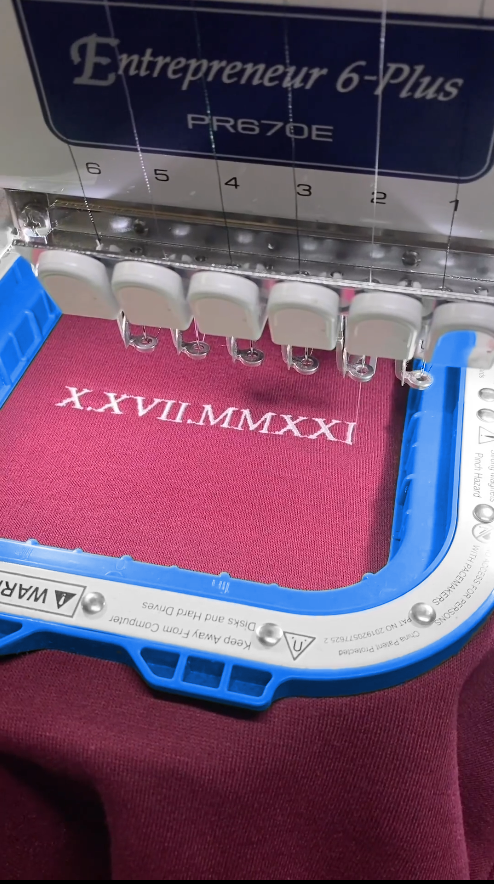
Mastering Monogram Fonts for Embroidery: Selection, Sources, and Expert Techniques
1. Introduction to Monogram Fonts for Embroidery
Monogram fonts are the heartbeat of personalized embroidery. Choose well, and initials read crisply, stitch smoothly, and instantly elevate towels, bags, tees, linens—everything, especially when using best sewing machine for embroidery and sewing. In this guide, you’ll get a curated list of free and premium monogram fonts, where to source them, and how to match styles to fabrics and sizes. We’ll also demystify etiquette, share software tips for clean spacing and alignment, and show you how proper hooping and tension deliver flawless results. Ready to pick fonts that stitch beautifully—and sell even better?
2. Comprehensive Guide to Free and Premium Monogram Fonts
2.1 Top Free Fonts: From Classic to Playful Styles
Free monogram fonts can be high quality—if you watch licensing and choose stitch-friendly styles.
• Strawberry Whipped Cream (script): A versatile, curly style with full commercial and non‑commercial freedom. Great for gifts, boutique items, and playful personalizations where a fluid script fits the vibe.
• Landsdowne (serif): A classic monogram favorite with an antique feel; Landsdowne Shadowed adds drama and depth. Ideal for linens and formal items. Licensing varies by source—verify terms before commercial use.
• Mesh Stitch (decorative): Includes uppercase/lowercase, numbers, and punctuation—excellent value for hobbyists. For commercial use, additional licensing may be required.
How to pick by fabric and project (serif vs. sans vs. script):
• Serif: Traditional elegance that looks fantastic on smooth linens and towels; use when formality matters. On textured fabrics, fine serifs can lose clarity.
• Sans‑serif/block: Clean, bold shapes stay legible on textured surfaces (think terry or waffle). A strong choice for beginners and daily production.
• Script: Sophisticated and flowing. Keep sizes larger to preserve thin strokes and avoid thread breaks; better suited to smooth fabrics.
Pro move:
• Test-stitch on scrap fabric that matches your final item. If a script’s thin strokes sink into texture, swap to a bolder sans‑serif.
2.2 Premium Font Platforms and Specialized Collections
Professional platforms save time with reliable digitizing, multi-format packs, and clear licensing. Here’s a quick comparison.
• As Embroidery Nurse notes, not every marketplace font is equally well digitized. Retire designs that cause thread breaks or show excess density, and build a shortlist of trusted digitizers.
2.3 Emerging Trends: Popular Fonts and Hybrid Applications
What’s hot right now:
• Fishtail monogram: Classic with a playful, feminine twist—popular for girls’ apparel and women’s gifts.
• Diamond style monogram: A timeless, bold look that works for both men’s and women’s accessories; thick strokes suit towels and robes.
• Monogram KK: Beautiful cursive letters (upper and lower), versatile for classy personalization and even appliqué projects.
Hybrid embroidery + cutting workflows:
• If you also use cutting machines, fonts like Radon, Moalang, and Venerable are optimized for Cricut-style applications. Designers increasingly choose families that translate across embroidery and vinyl/paper, streamlining branding and seasonal collections.
Real‑world inspiration:
• Themed monograms (e.g., an American flag monogram) stitch into everyday apparel like tanks and tees, delivering high perceived value with a simple left‑chest placement.
9.2 Q: Can I resize purchased monogram fonts?
- A: Not recommended; use pre‑digitized sizes to avoid stitch distortion and thread breaks.
9.3 Q: How do I choose between serif and sans-serif for towels?
- A: Opt for bold sans‑serif or block fonts—their clarity outperforms serifs on textured surfaces, especially when using large embroidery hoops for towels.